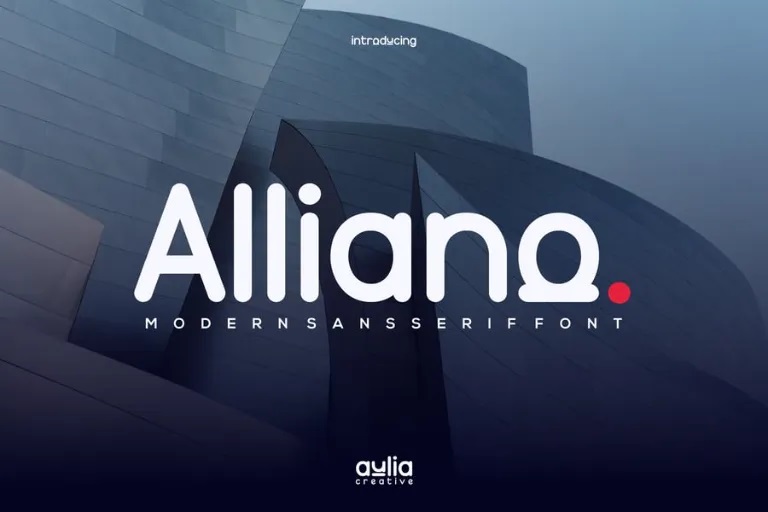
Alliano Font
Alliano font and actual display font with fairlice principle. Just right for branding, logo, wedding items, greeting cards, fashion, lookbook, marketing promotion, any time you would like to look glamorous but not overly formal.
Alliano Sans Serif Font